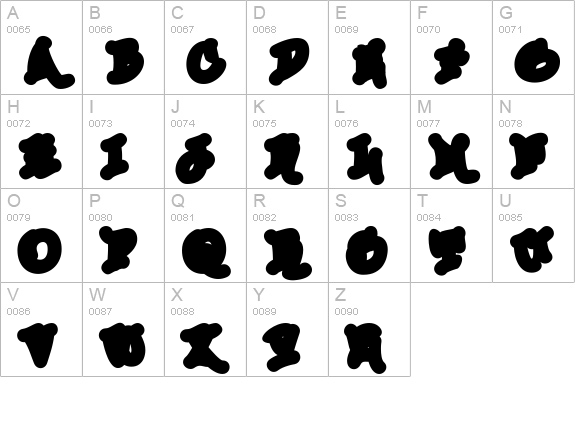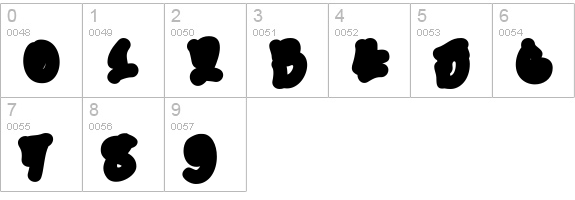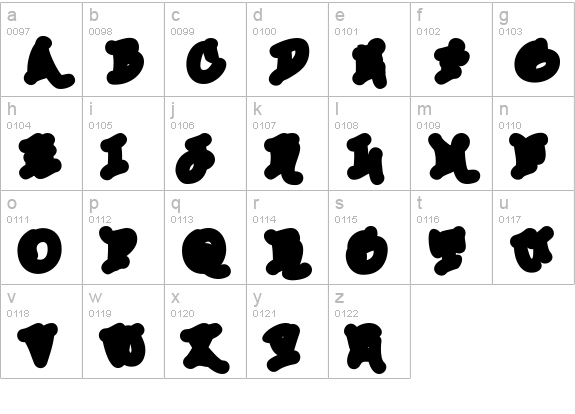
Urban Scrawl Down is a unique and captivating font that adds a touch of urban flair to any project. With its bold and edgy design, this font is perfect for creating eye-catching titles, logos, posters, and more. Its graffiti-inspired style exudes a sense of urban energy and creativity, making it an ideal choice for projects related to street art, hip-hop culture, and modern design. What makes Urban Scrawl Down even more appealing is that it is available for free download at FontsMarket.com. This means that you can easily access this stunning font without having to spend a dime. Whether you are a graphic designer, a student, or simply someone with a passion for typography, Urban Scrawl Down offers you an opportunity to enhance your projects with a stylish and contemporary font. Featuring a wide range of characters, including uppercase letters, lowercase letters, numbers, and symbols, Urban Scrawl Down provides versatility and flexibility in your creative endeavors. The irregular letterforms and rugged strokes give this font an authentic and raw feel, perfectly capturing the essence of urban street art. With Urban Scrawl Down, you can effortlessly bring a touch of urban aesthetics to your designs, making them stand out from the crowd. So why wait? Download this remarkable font for free at FontsMarket.com and let your creativity flow with the captivating and energetic Urban Scrawl Down font.